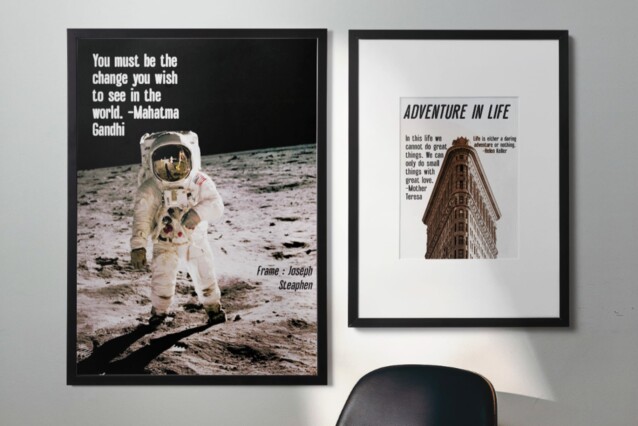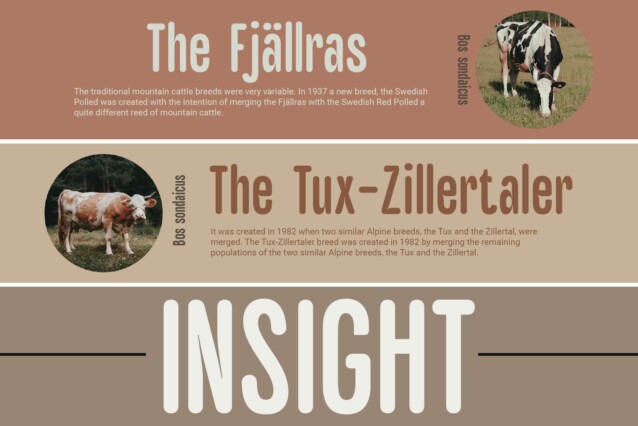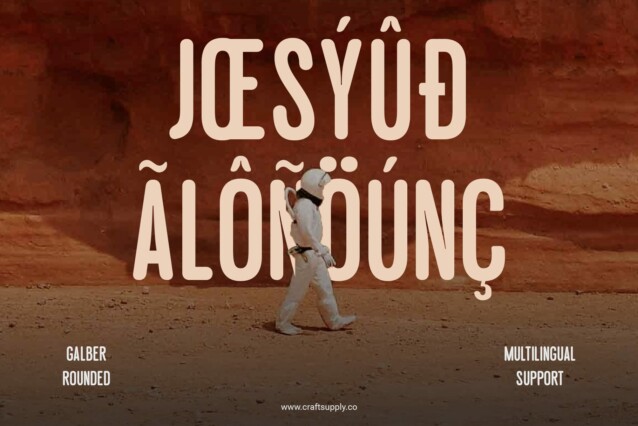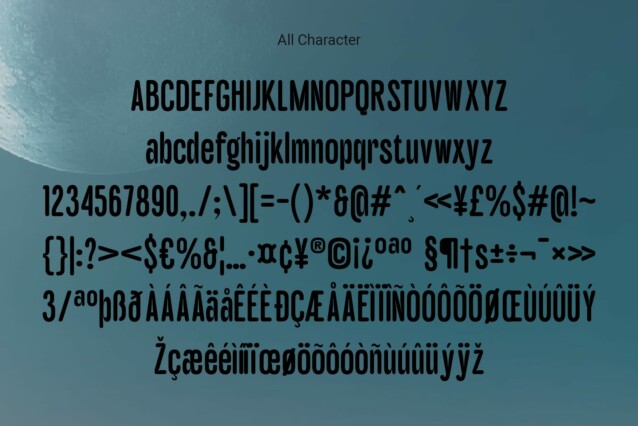
Galber Rounded Font
Galber Rounded Font: A Friendly Sans Serif. Soft and Inviting Galber Rounded features low contrast sans serif and rounded stem terminals, exuding a welcoming vibe. Its soft edges create a friendly and approachable feel, making it ideal for various design projects.
Condensed Elegance With a condensed design, This font strikes a balance between elegance and space efficiency. Its streamlined appearance adds a touch of sophistication while maximizing legibility in compact layouts.